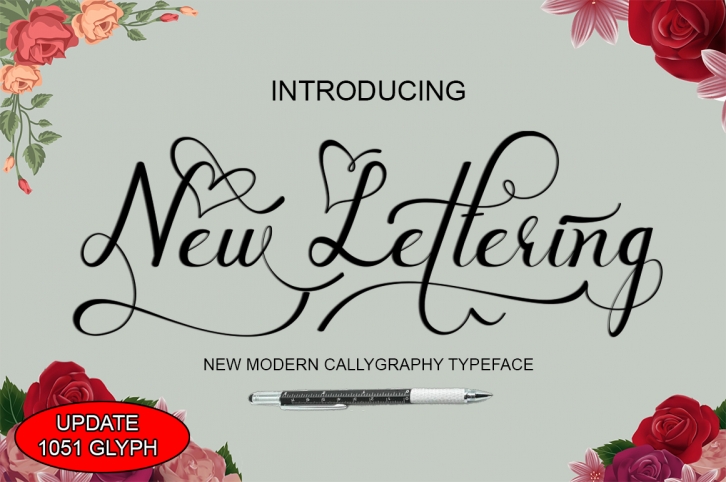
New lettering update is a great font that was designed by Art Design. Imagine the amount of combinations you can create using this font! The archive is 8.9 MB and it was released on December 24, 2017. New lettering update looks beautiful on wedding invitations, greeting cards, logos, posters, labels, t-shirt designs, logos, business cards and is perfect for use in ink or watercolor works, fashion, magazines, packaging and food menus, children's books and more!